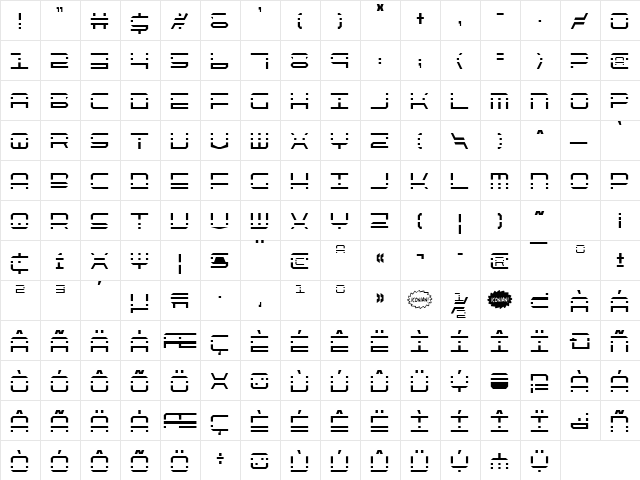
QuickQuick Condensed Condensed
Design Context for QuickQuick Condensed Typeface
QuickQuick Condensed takes a measured approach to typography — its balanced proportions and neutral character make it a reliable workhorse for both digital and print work. Its narrow stance lets it pack a punch even in space-constrained designs.